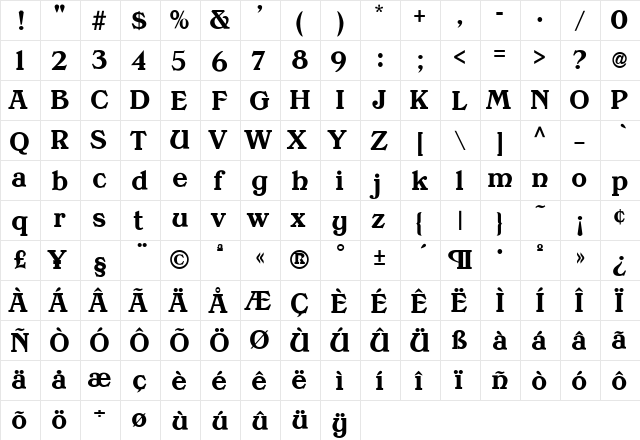
PoynderDemi Regular
Design Context for PoynderDemi Typeface
PoynderDemi is a composed and adaptable typeface that performs quietly and consistently across a wide range of design contexts.